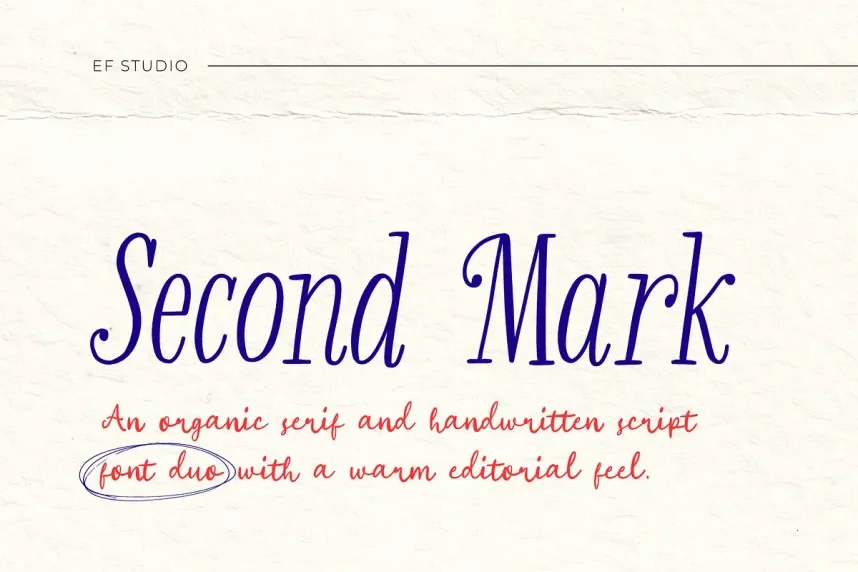
Second Mark Font is a sleek, modern sans-serif typeface designed for high readability and minimalistic appeal. Perfect for corporate branding, advertising, and digital projects, this font maintains a clean, professional appearance.
Best used for website copy, branding, and social media posts, Second Mark Font pairs well with bold serif fonts for headlines or accent text. Available in TTF and OTF formats, it includes a commercial-use license. Always check the licensing before using it commercially.